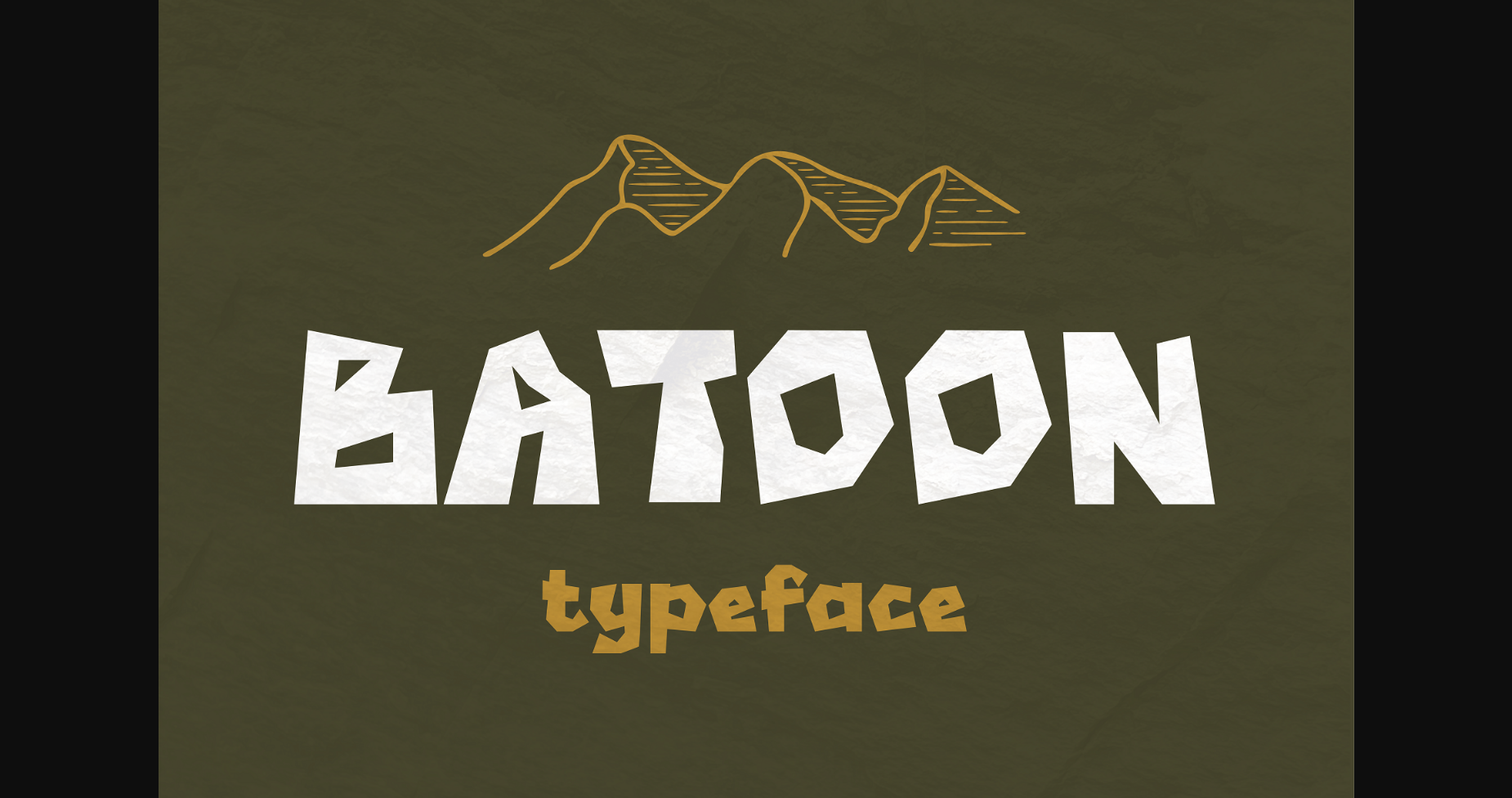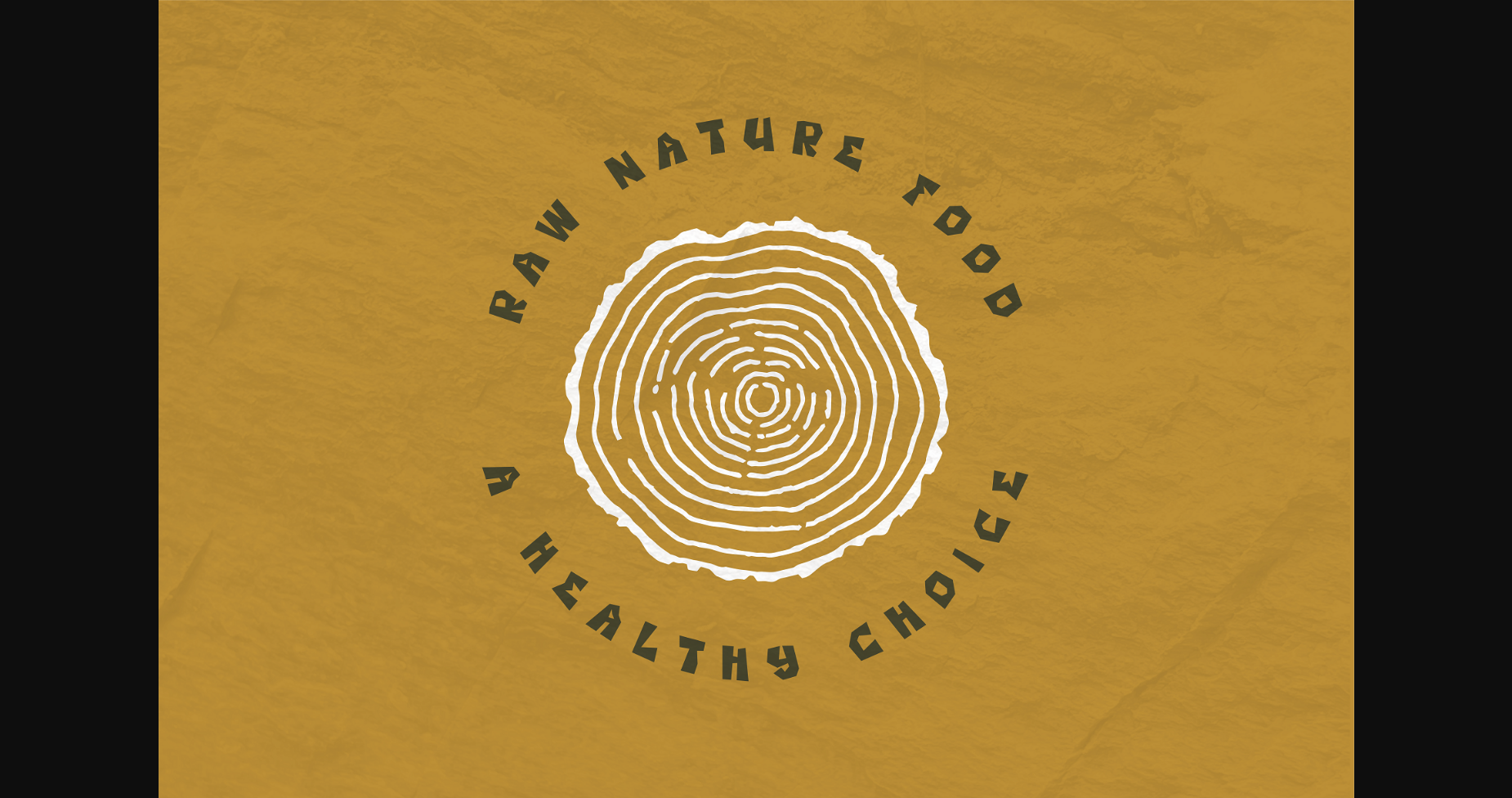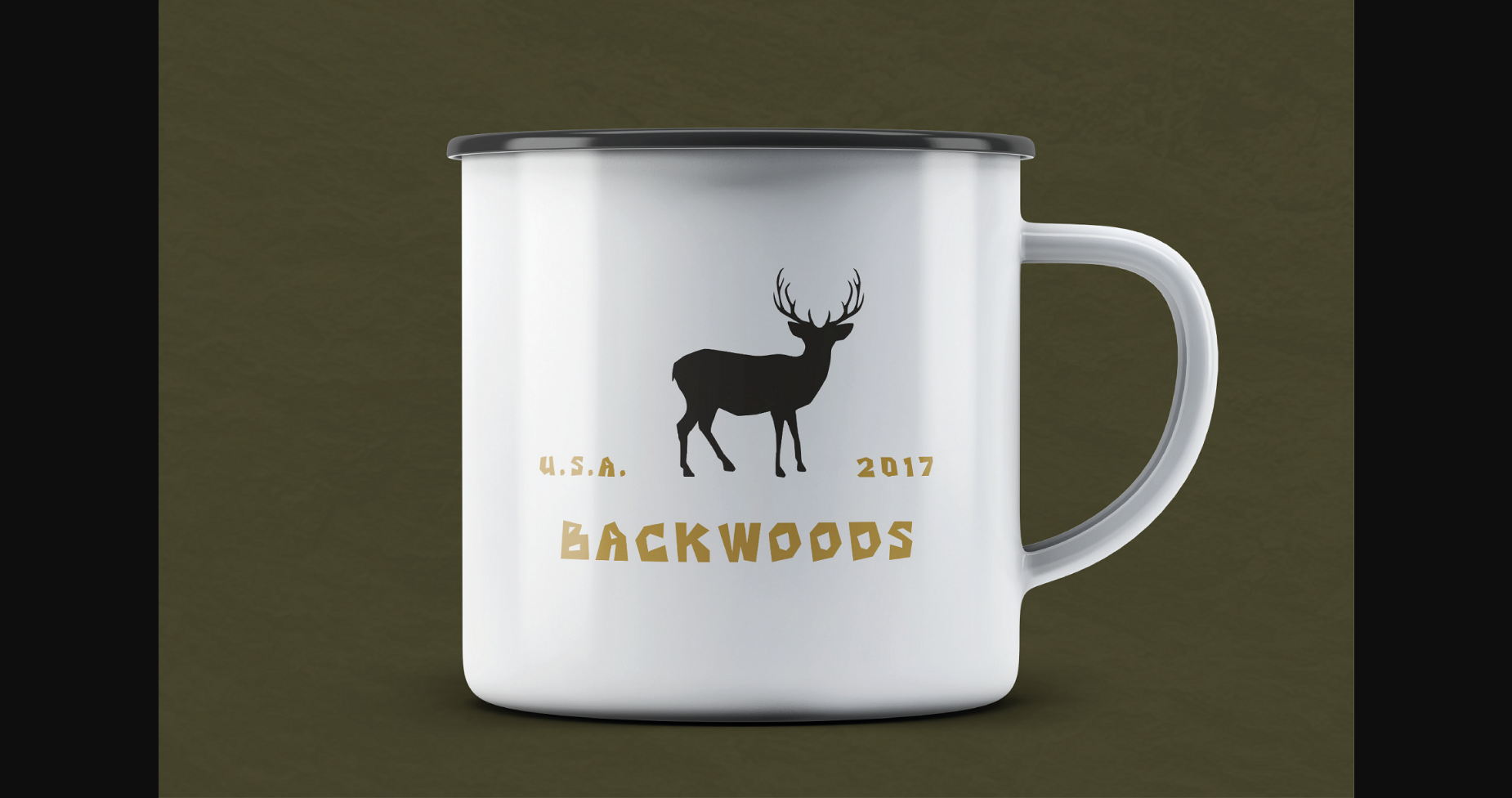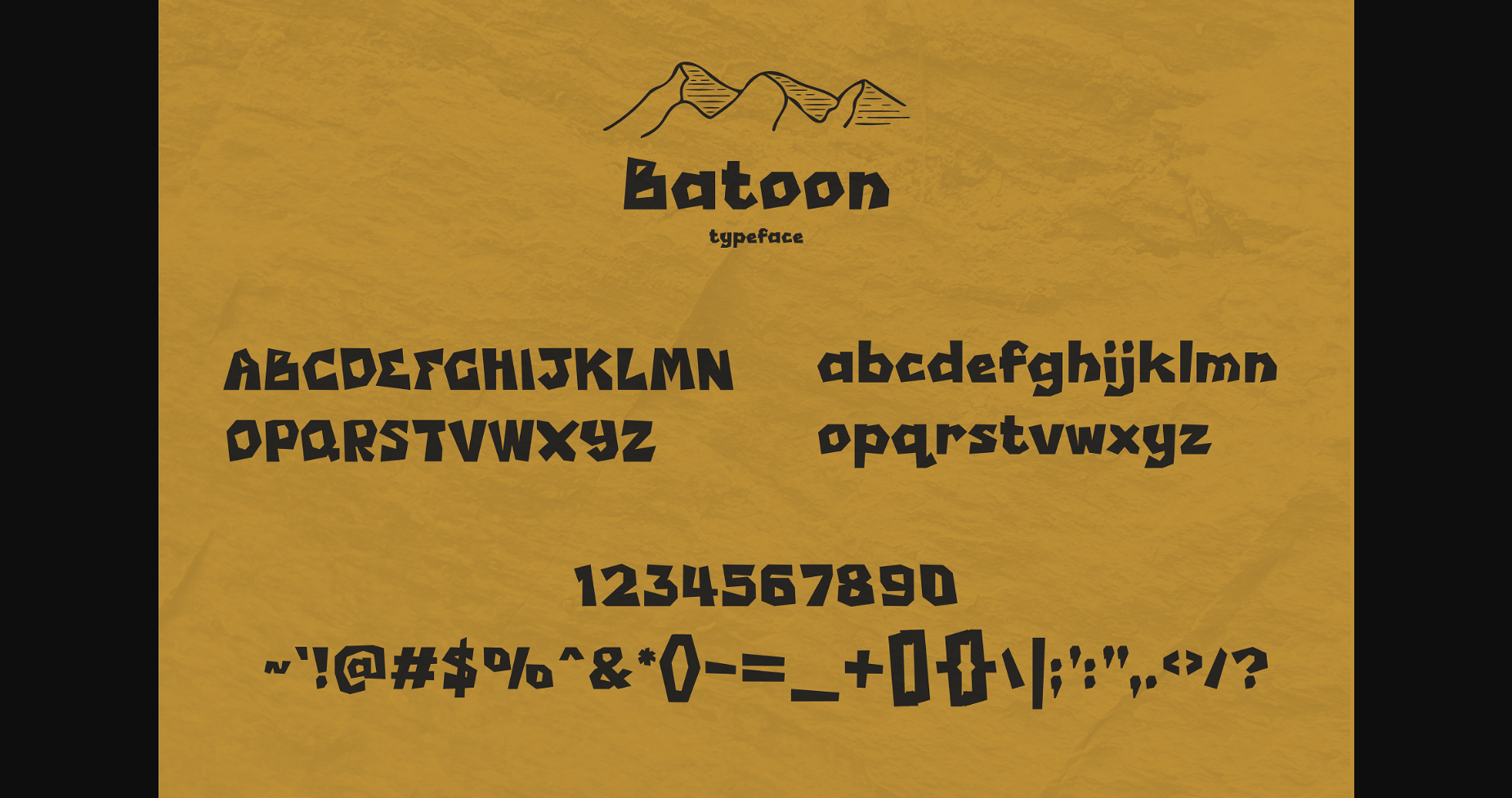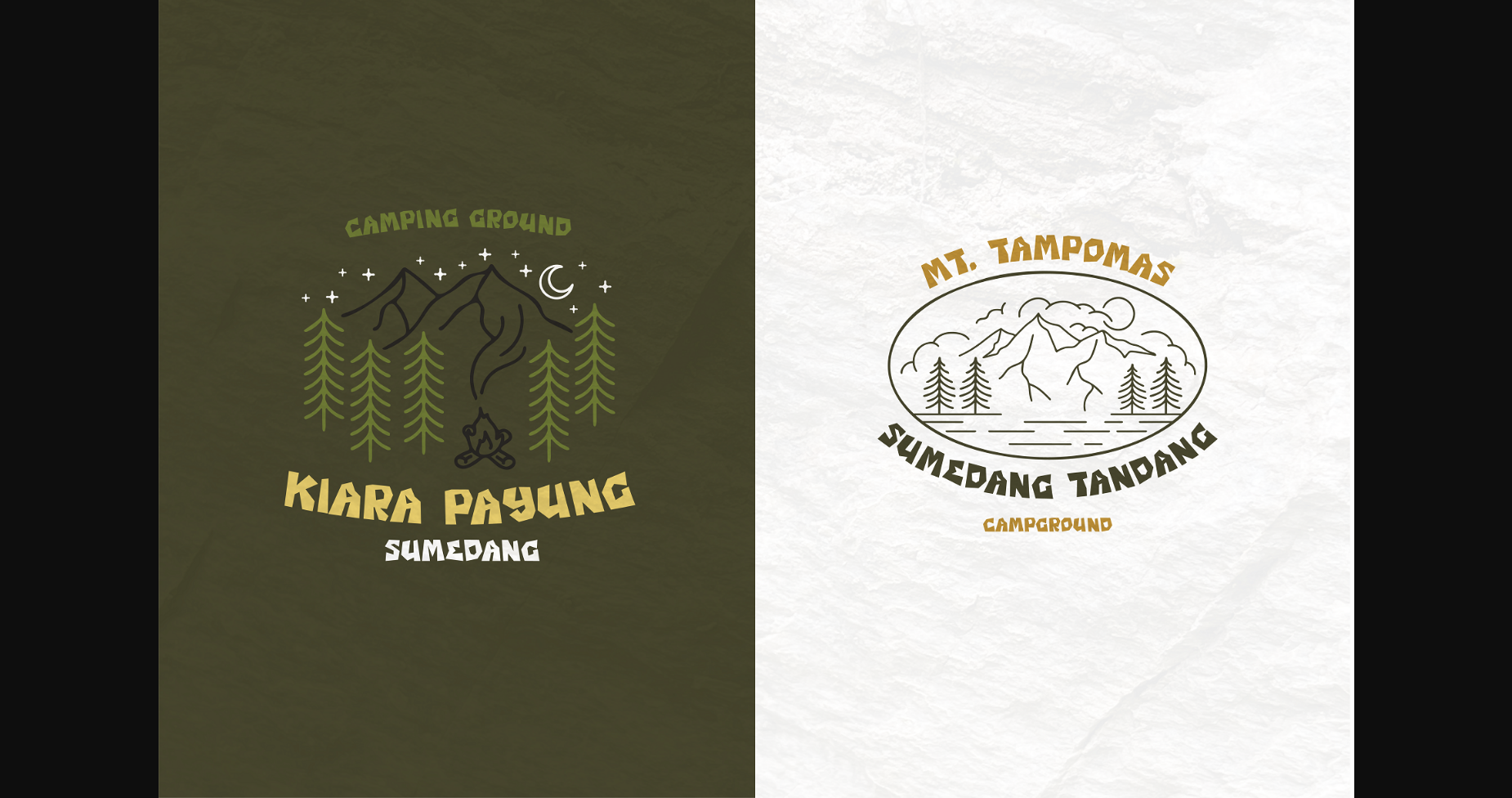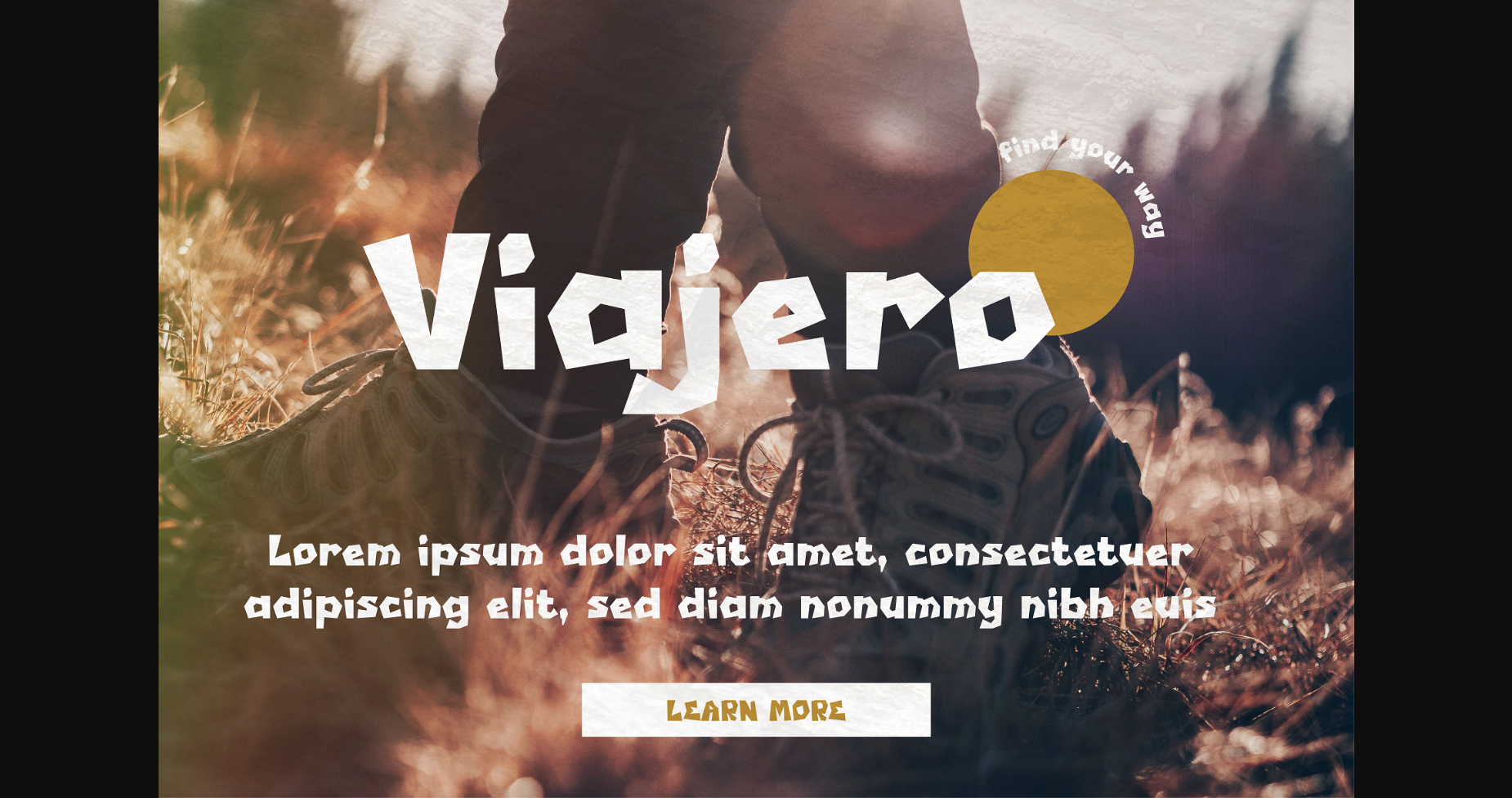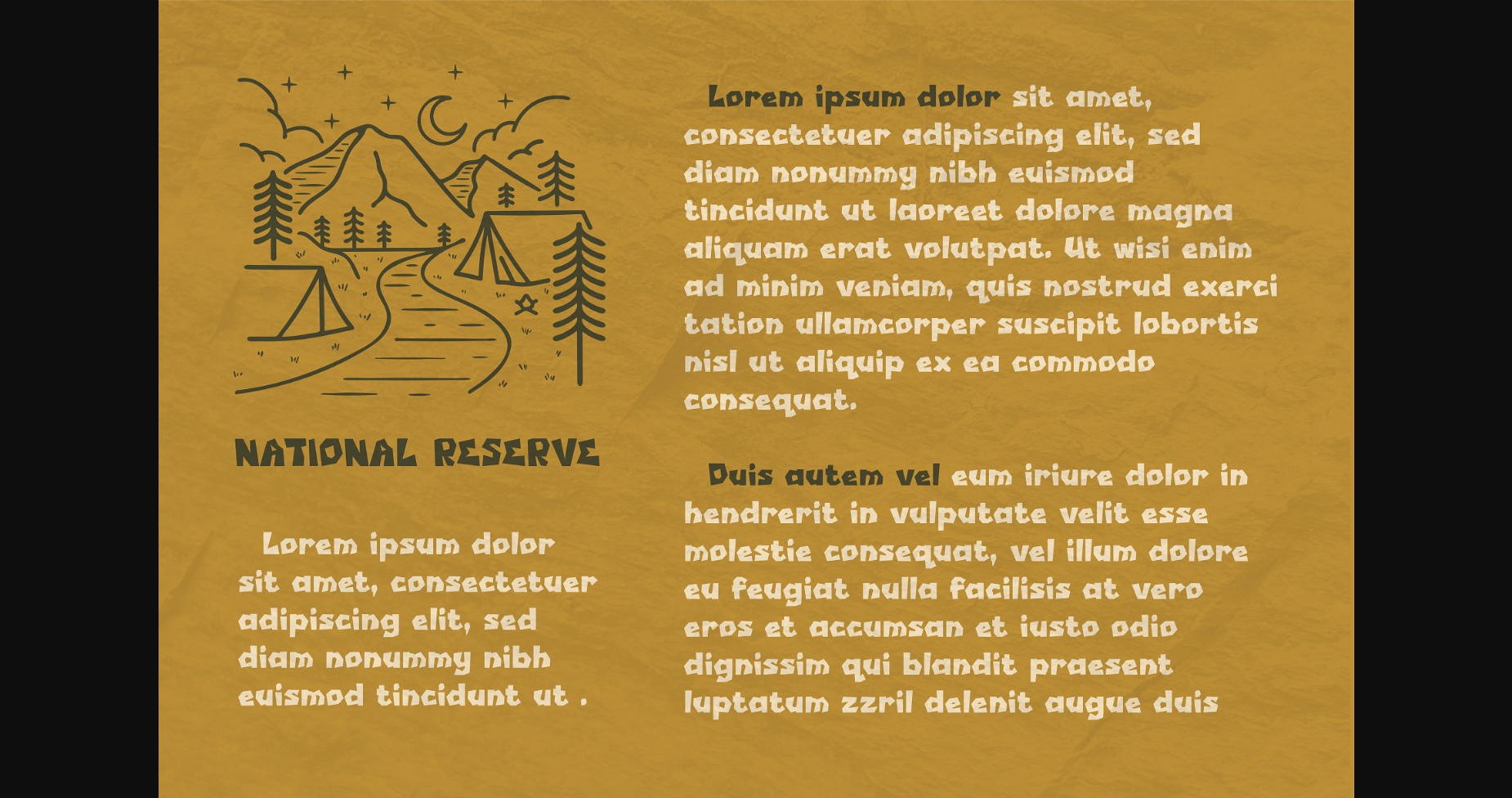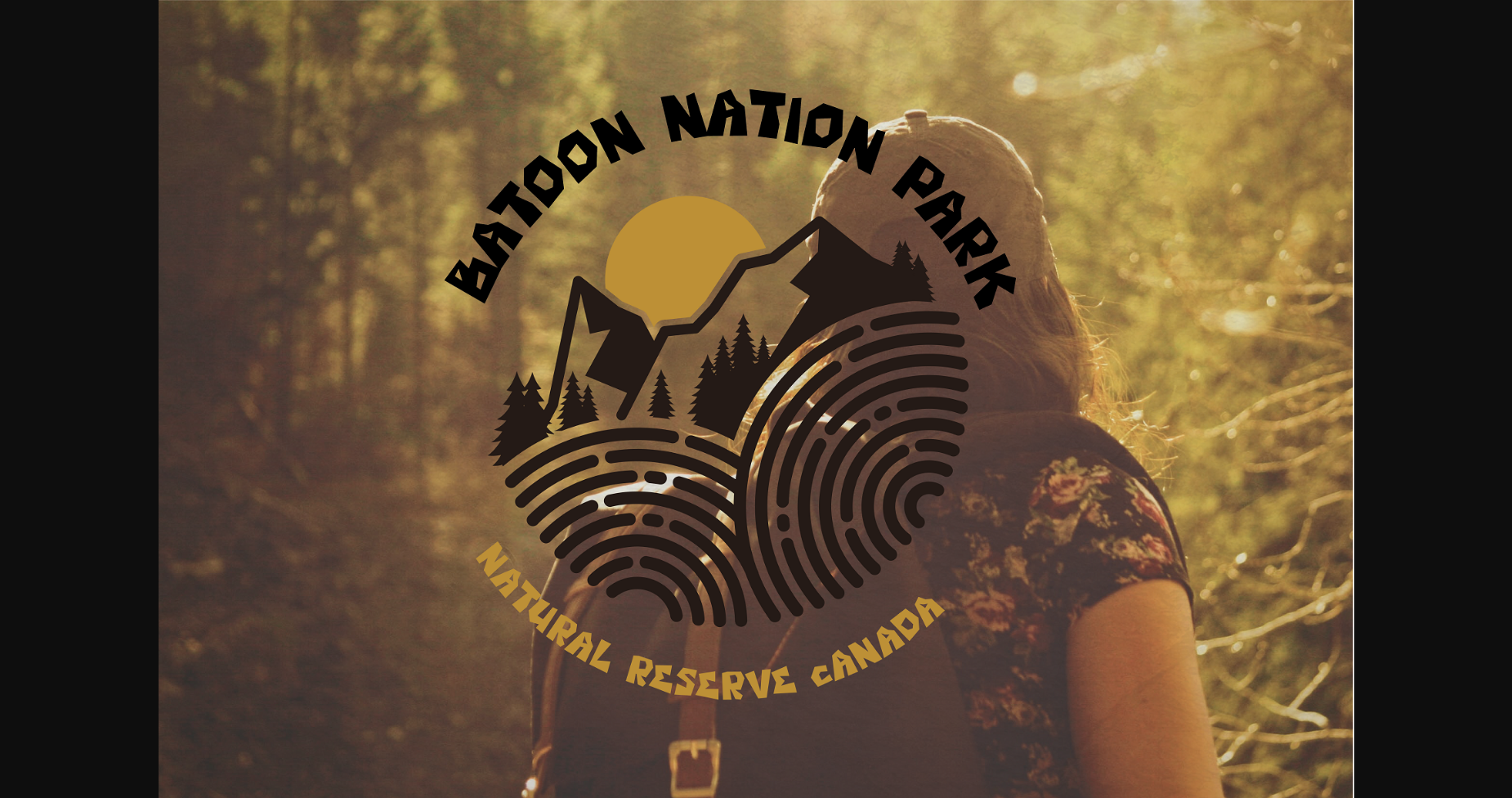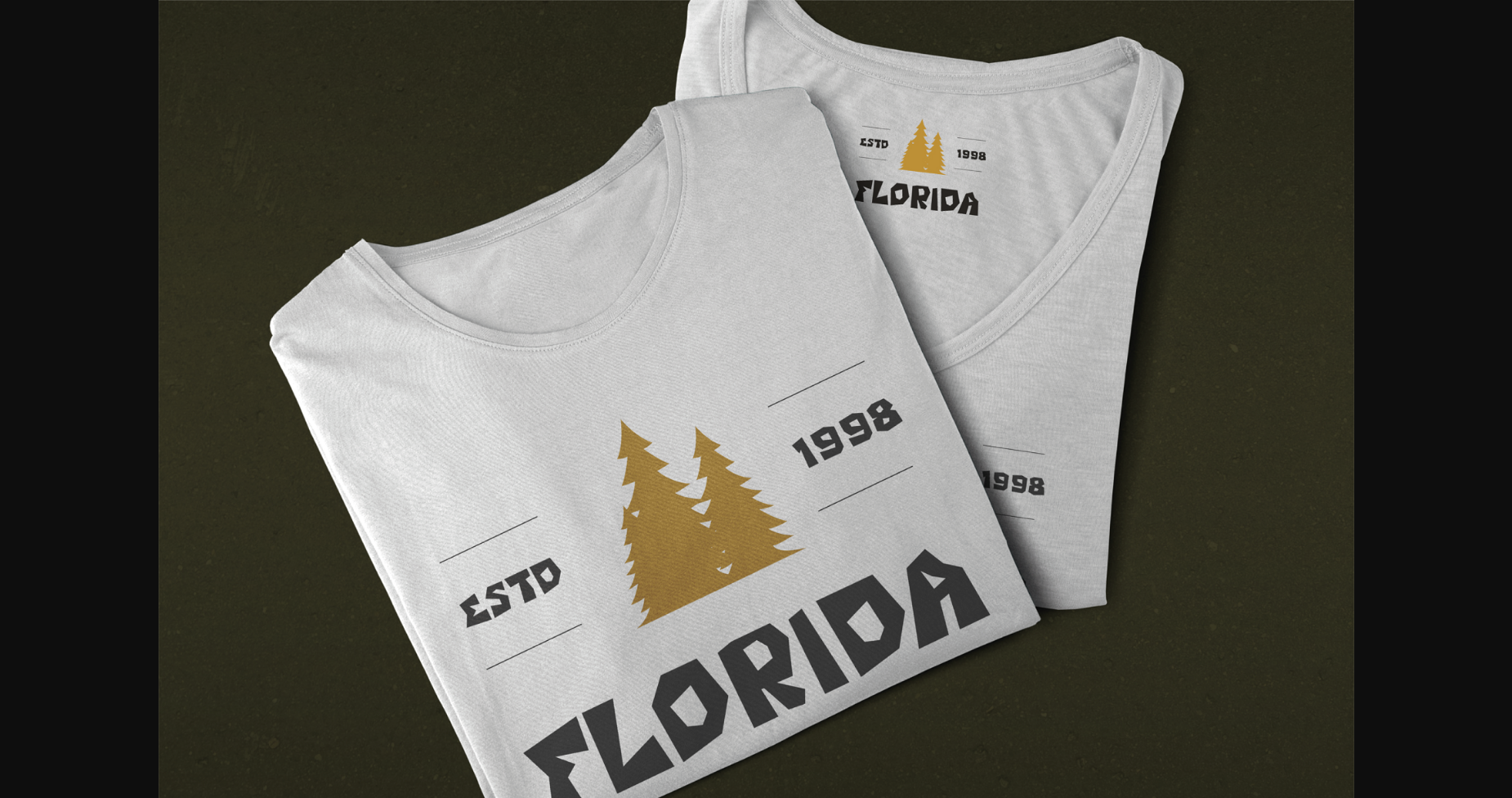
Batoon Font
About Batoon Font
Batoon is a handmade, sharp sans-serif typeface that captures the rugged beauty of the Rocky Mountains. Its jagged edges and bold lines evoke the craggy peaks and rocky trails of the mountain range, making it the perfect choice for any hiking or camping project. Each letter is crafted with care, imbuing your designs with a sense of handcrafted authenticity and natural ruggedness.